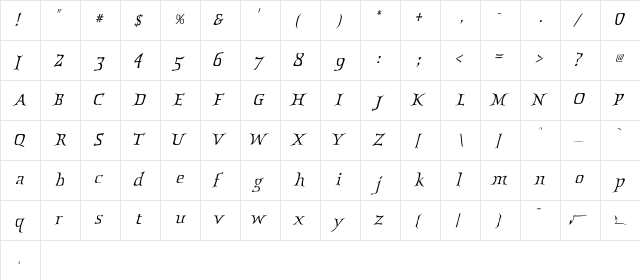
ScoriaESlanted Regular
Design Context for ScoriaESlanted Typeface
ScoriaESlanted takes a measured approach to typography — its balanced proportions and neutral character make it a reliable workhorse for both digital and print work. The slanted form adds forward momentum and visual energy.
Pro Tip: Try ScoriaESlanted for annotation and caption copy alongside an upright companion — the contrast in angle creates a dynamic but ordered typographic system.